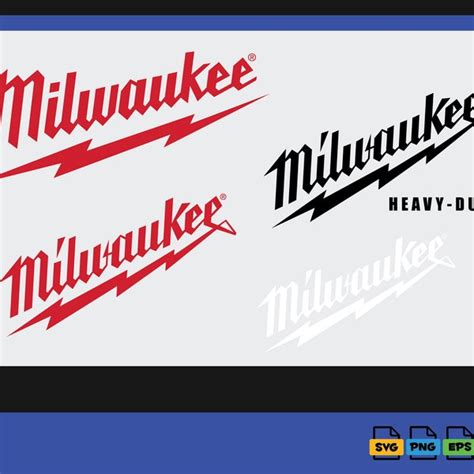
Milwaukee Tool Font. Web dec 17, 2021 at 20:24. This complete typeface includes accents,.
This complete typeface includes accents,. Web dec 17, 2021 at 20:24. Web ut nickel is a geometric script font inspired by the milwaukee tool company logo.
Web ut nickel is a geometric script font inspired by the milwaukee tool company logo. Web dec 17, 2021 at 20:24. Web ut nickel is a geometric script font inspired by the milwaukee tool company logo. This complete typeface includes accents,.